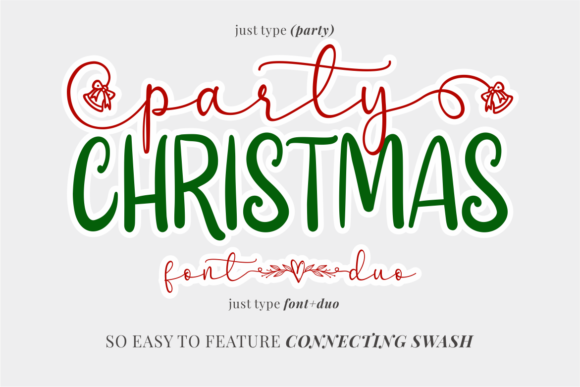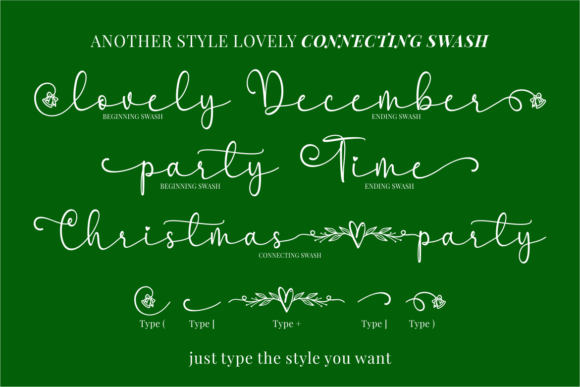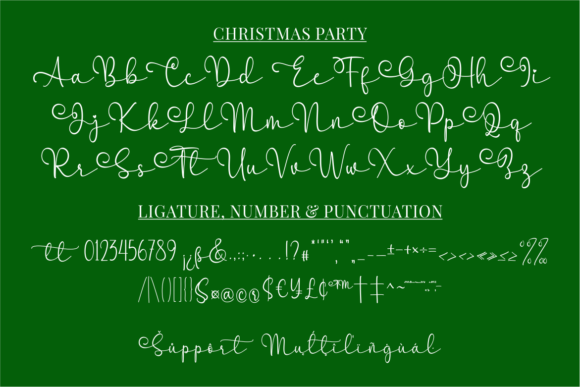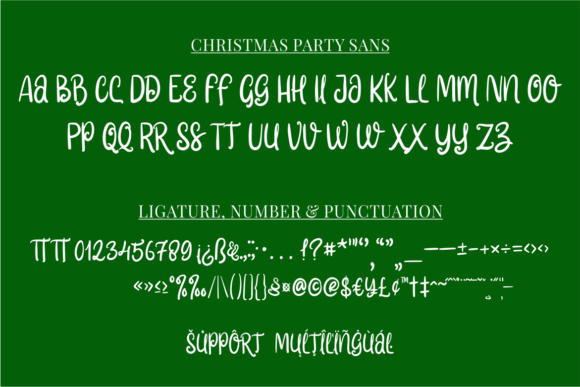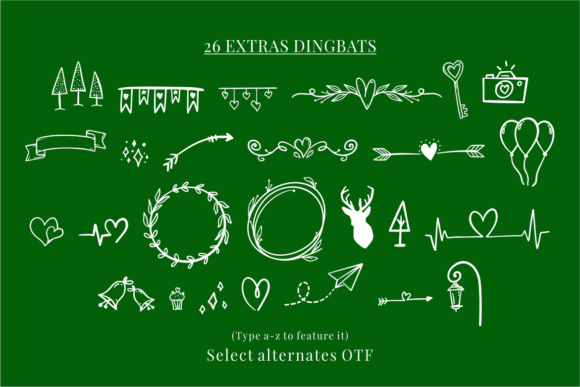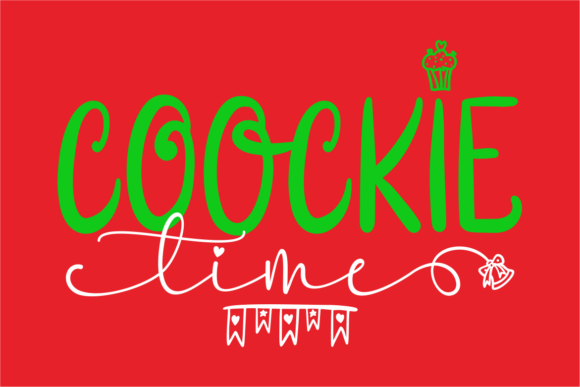
Introducing Christmas Party Font: The Perfect Addition to Your Holiday Designs
Are you looking for a font that captures the essence of the holiday season? Look no further than Christmas Party Font, a stylish and delicate handwritten and dingbats duo font that’s perfect for adding a touch of romance and festivity to your designs. In this article, we’ll dive into the features and benefits of Christmas Party Font, and explore how you can use it to take your holiday designs to the next level.
A Versatile Typeface for a Wide Range of Applications
Christmas Party Font is a versatile typeface that can be used for a wide range of applications, from greeting cards and invitations to headlines and social media graphics. Its delicate and stylish handwritten design makes it perfect for creating elegant and sophisticated designs that are sure to impress. Whether you’re a designer, crafter, or DIY enthusiast, Christmas Party Font is a must-have addition to your font collection.
Key Features of Christmas Party Font
- Handwritten and Dingbats Duo Font: Christmas Party Font comes with both a handwritten font and a dingbats font, giving you a wide range of creative possibilities.
- Delicate and Stylish Design: The font features a delicate and stylish design that’s perfect for creating elegant and sophisticated designs.
- Wide Range of Applications: Christmas Party Font can be used for a wide range of applications, from greeting cards and invitations to headlines and social media graphics.
- Romantic and Festive Feel: The font is guaranteed to add a romantic and festive feel to your designs, making it perfect for holiday-themed projects.
How to Use Christmas Party Font in Your Designs
Using Christmas Party Font in your designs is easy. Here are a few ideas to get you started:
- Create Holiday Greeting Cards: Use Christmas Party Font to create beautiful and elegant holiday greeting cards that are sure to impress your friends and family.
- Design Festive Invitations: Use the font to design festive invitations for your holiday party or event.
- Add a Touch of Romance to Your Headlines: Use Christmas Party Font to add a touch of romance and festivity to your headlines and social media graphics.
- Make Beautiful DIY Crafts: Use the font to make beautiful DIY crafts, such as holiday gift tags and decorations.
Tips and Tricks for Getting the Most Out of Christmas Party Font
Here are a few tips and tricks for getting the most out of Christmas Party Font:
- Experiment with Different Colors: Experiment with different colors and textures to add depth and interest to your designs.
- Use the Dingbats Font to Add Visual Interest: Use the dingbats font to add visual interest and personality to your designs.
- Pair with Other Fonts: Pair Christmas Party Font with other fonts to create a unique and stylish design.
- Use for Non-Holiday Projects: Don’t be afraid to use Christmas Party Font for non-holiday projects, such as wedding invitations and romantic getaways.
Christmas Party Font is a stylish and delicate handwritten and dingbats duo font that’s perfect for adding a touch of romance and festivity to your designs. With its versatile design and wide range of applications, it’s a must-have addition to any designer’s or crafter’s font collection. Whether you’re creating holiday greeting cards, festive invitations, or romantic headlines, Christmas Party Font is sure to take your designs to the next level.